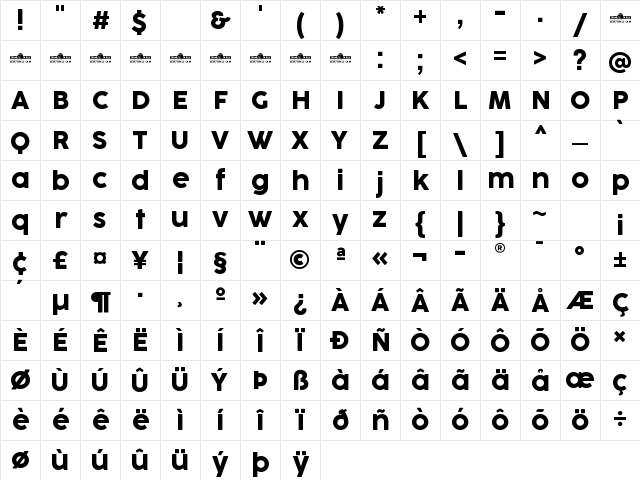
CocogooseProTrial Regular Free Font
CocogooseProTrial Regular
Foundry: Zetafonts
Designer: Cosimo Lorenzo Pancini
Design Context for CocogooseProTrial
CocogooseProTrial is a composed and adaptable typeface that performs quietly and consistently across a wide range of design contexts.
Who designed the CocogooseProTrial Regular font?